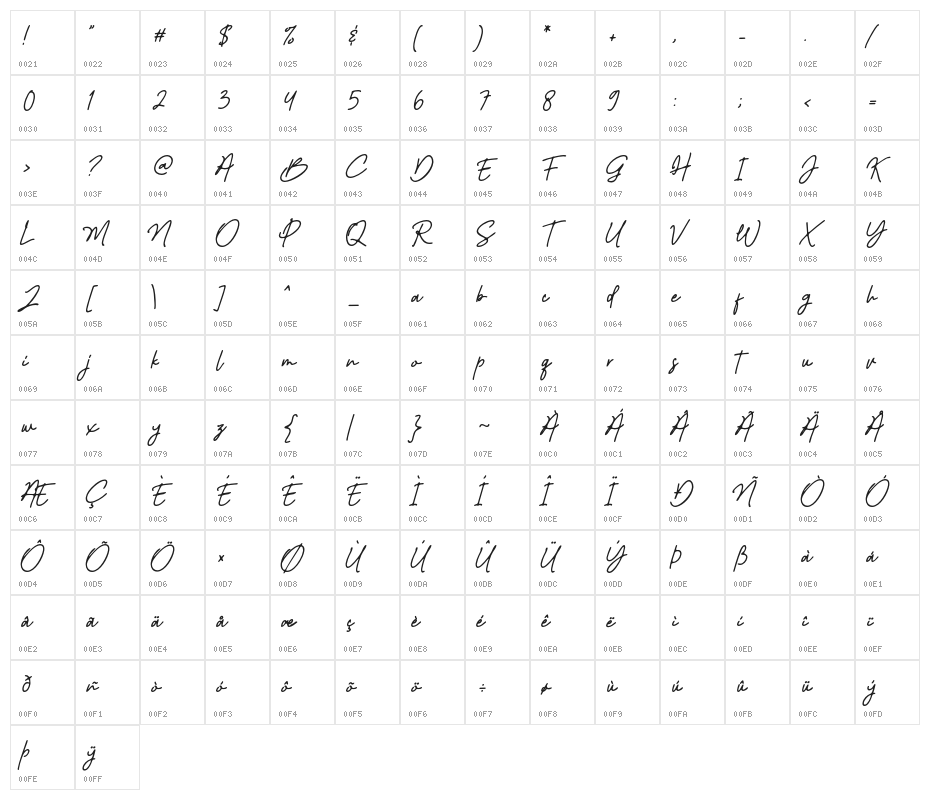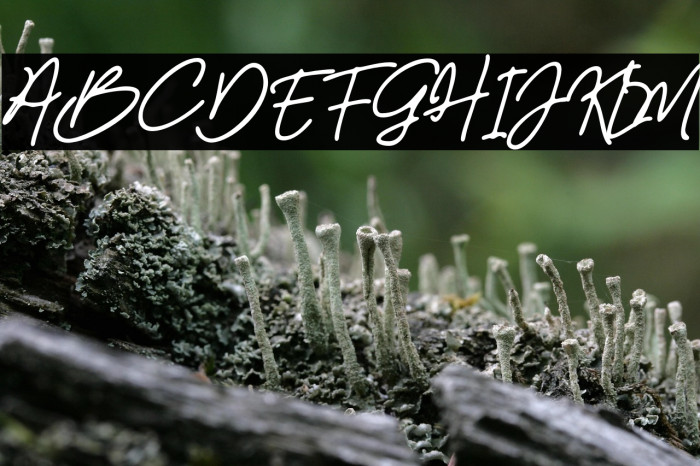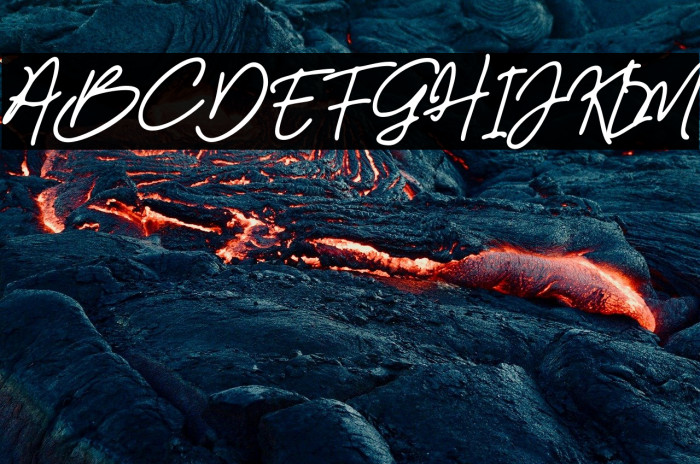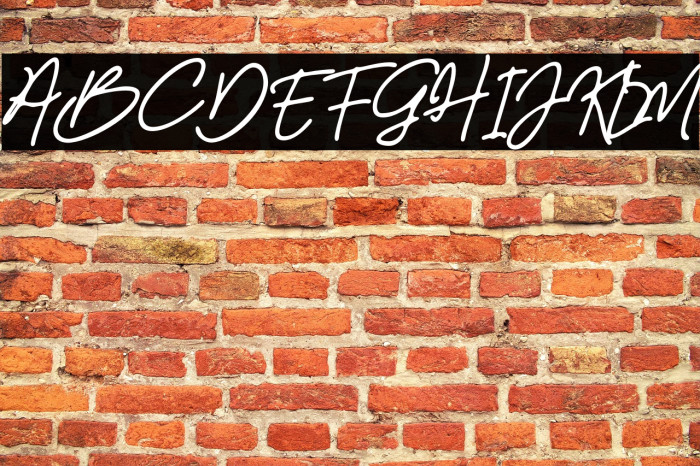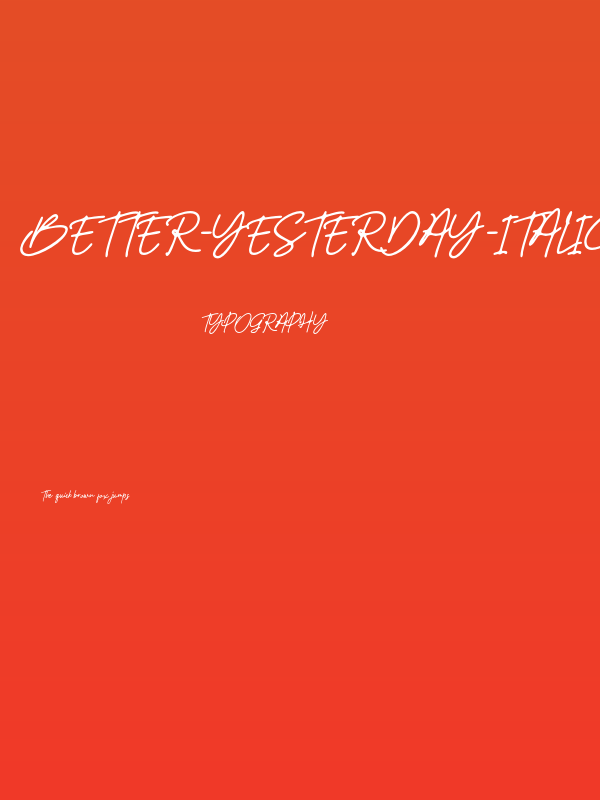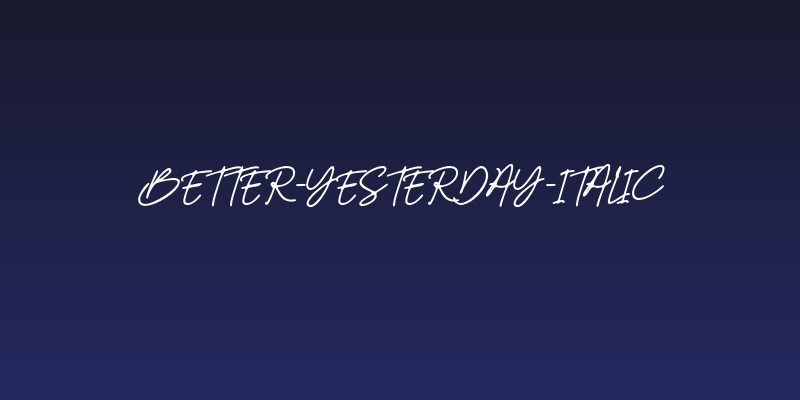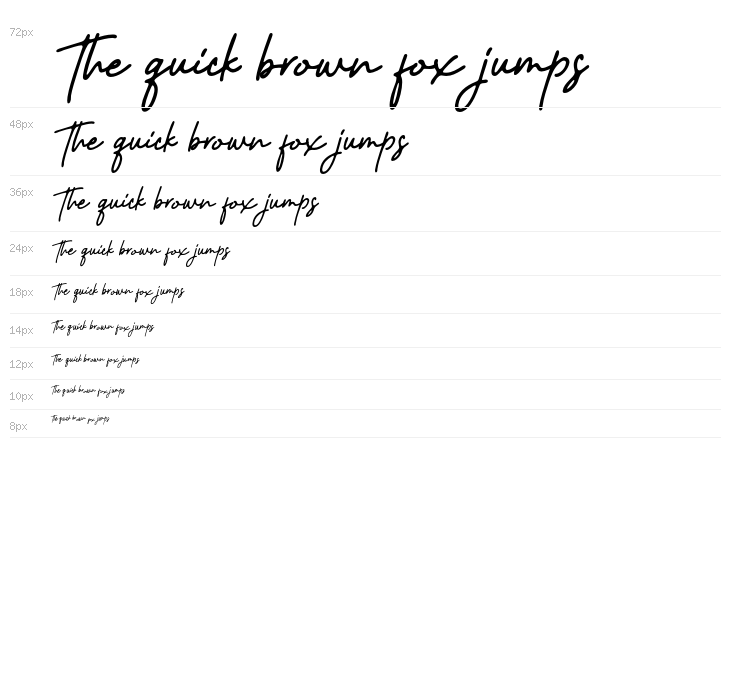
Better-Yesterday-italic Font
Better-Yesterday-italic Description
This font features a flowing, cursive style that mimics elegant handwriting. The characters are connected, creating a seamless and fluid appearance. The strokes are smooth and slightly varied in thickness, adding a touch of sophistication and personality. The uppercase letters are bold and prominent, while the lowercase letters maintain a consistent flow. Numbers and special characters are designed to match the overall script style, ensuring uniformity across all text. This font is ideal for projects that require a personal, handwritten touch.
| Overall Style | Elegant, Handwritten |
| Proposed Projects | Ideal for wedding invitations, personal branding, greeting cards, and elegant stationery. |